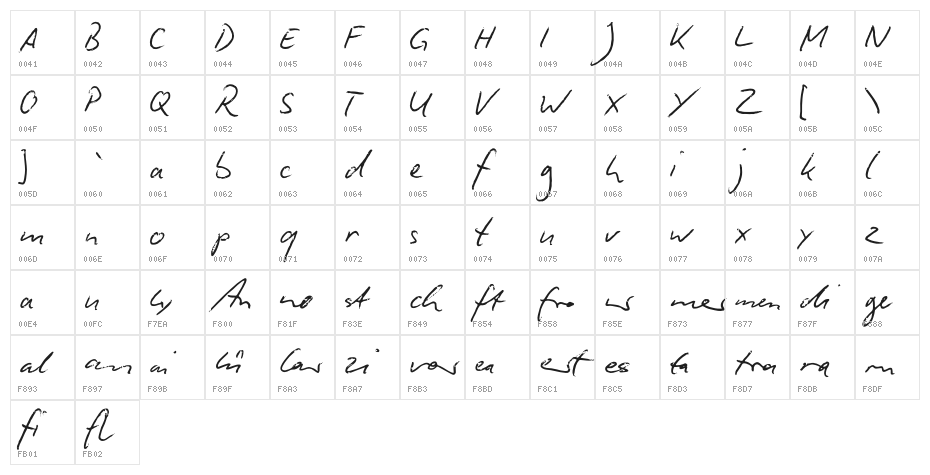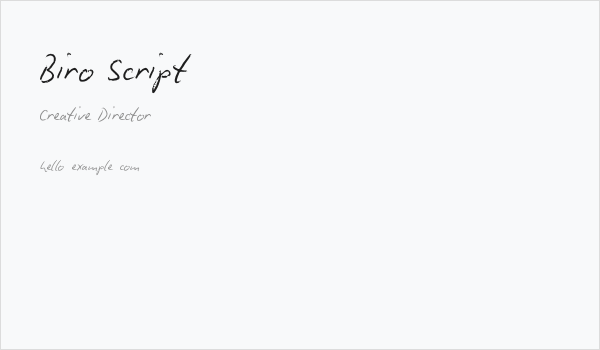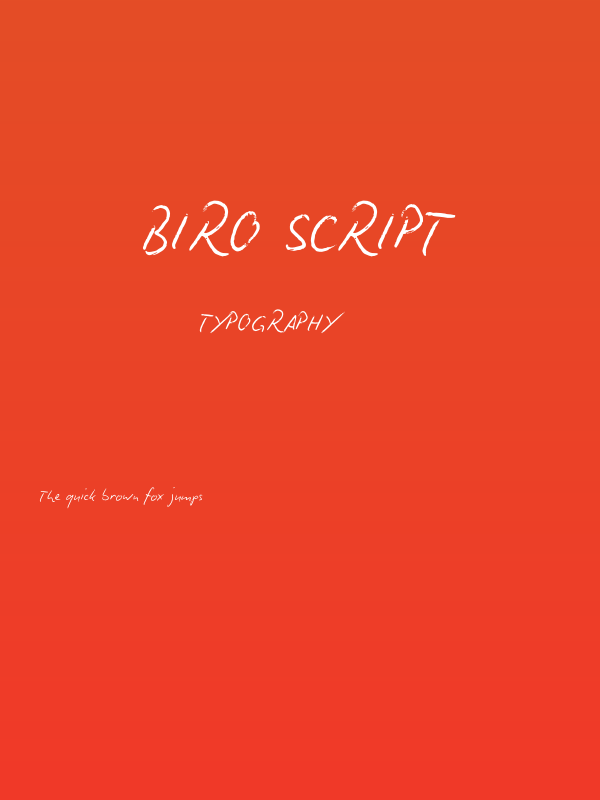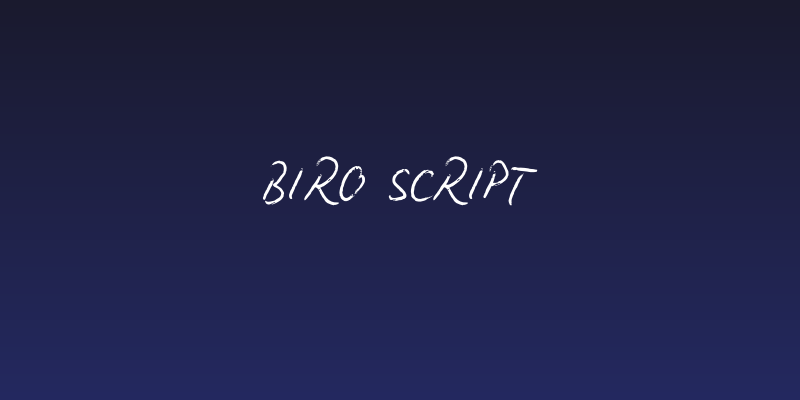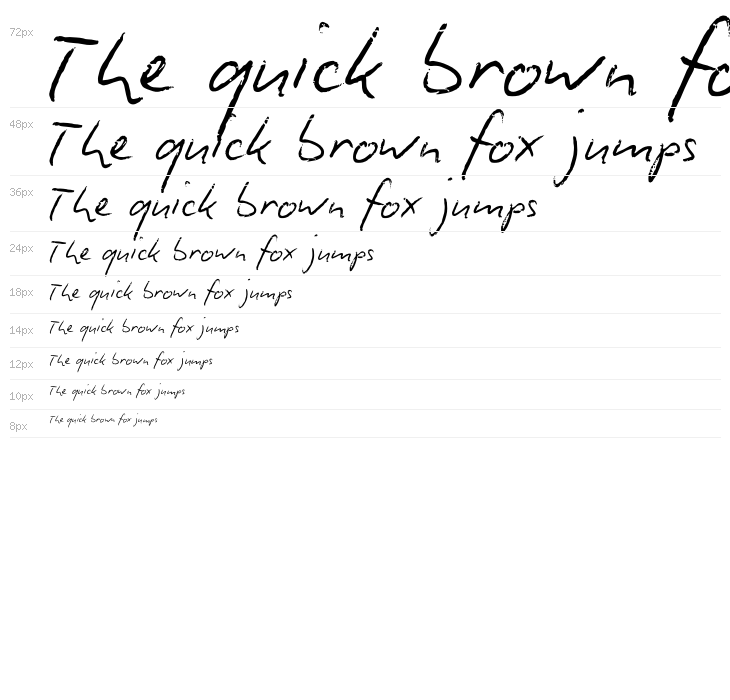
Biro Script Font
Biro Script Description
This font exudes a handwritten, casual style reminiscent of ink pen strokes. The letters are fluid and slightly slanted, giving an impression of personal touch and informality. The uppercase and lowercase characters maintain a consistent flow, with some letters featuring unique loops and curves that add to its charm. The texture is slightly rough, mimicking the effect of a pen running out of ink, which enhances its authentic handwritten feel. This font is perfect for projects that require a personal, approachable, and creative touch. It can be used effectively in designs that aim to convey warmth and individuality.
| Overall Style | Casual, Artistic |
| Use Case | Logos, Invitations, Personal Notes |
| Proposed Projects | Ideal for greeting cards, personal notes, creative invitations, and artistic branding. |